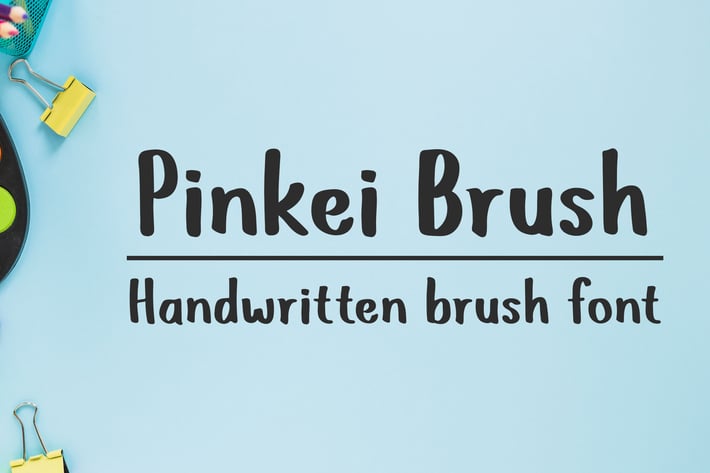
Pinkei Brush - Handwritten Brush Font
Pinkei Brush is new Brush Lettering style clean and simple Brush font, Handwritten with Tombow Large Brush Pen,
Included Uppercase,
Lowercase,
Numbers,
Punctuation's,
* Multilingual characters.